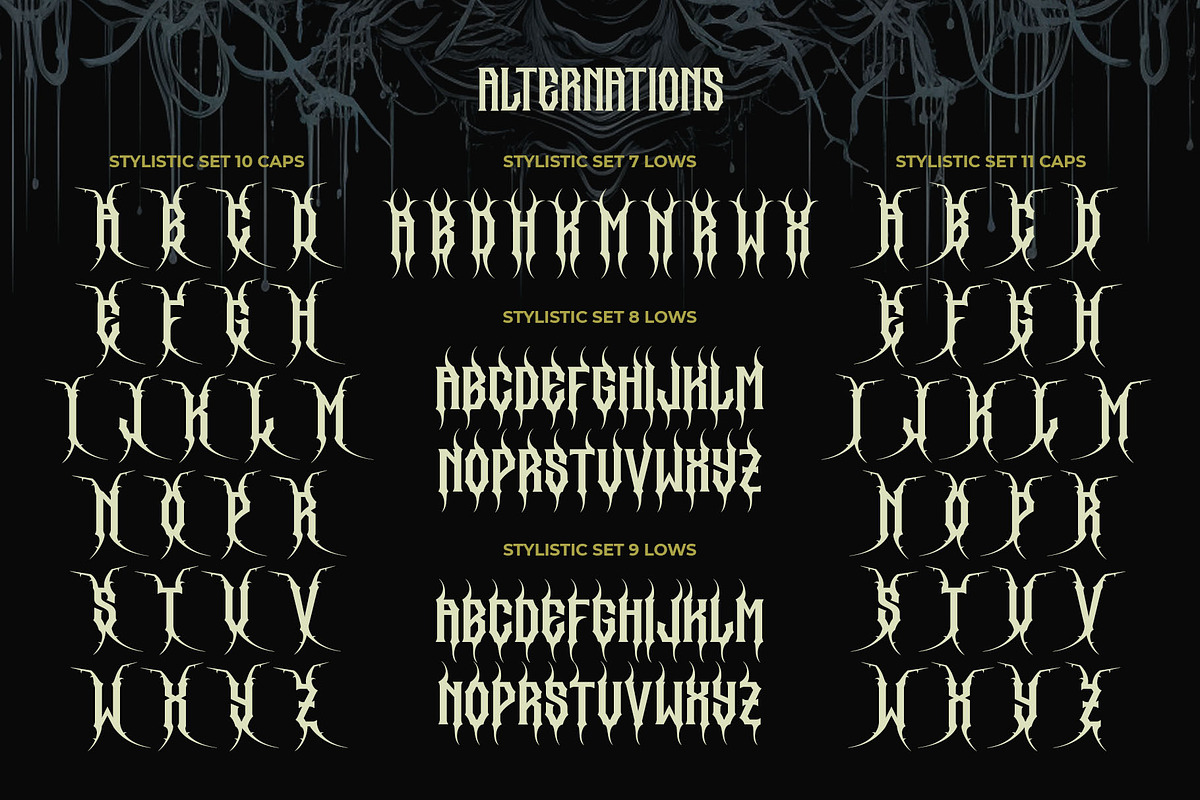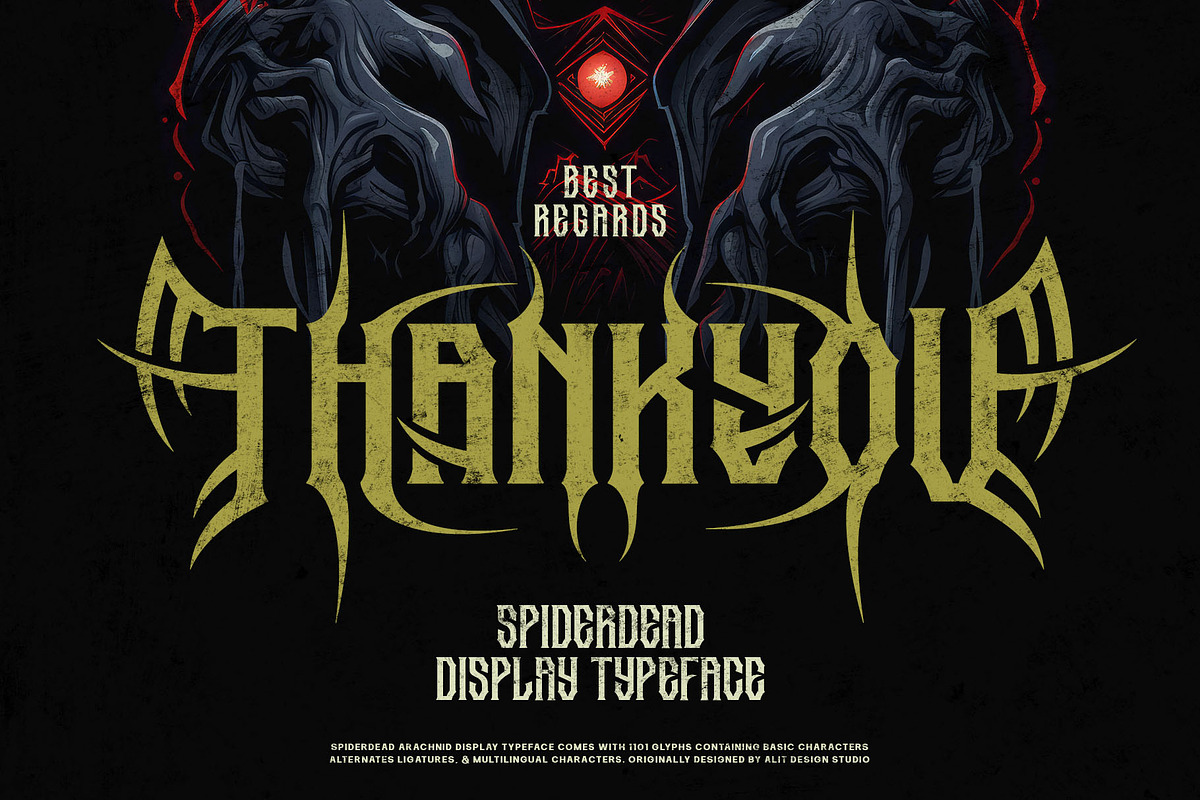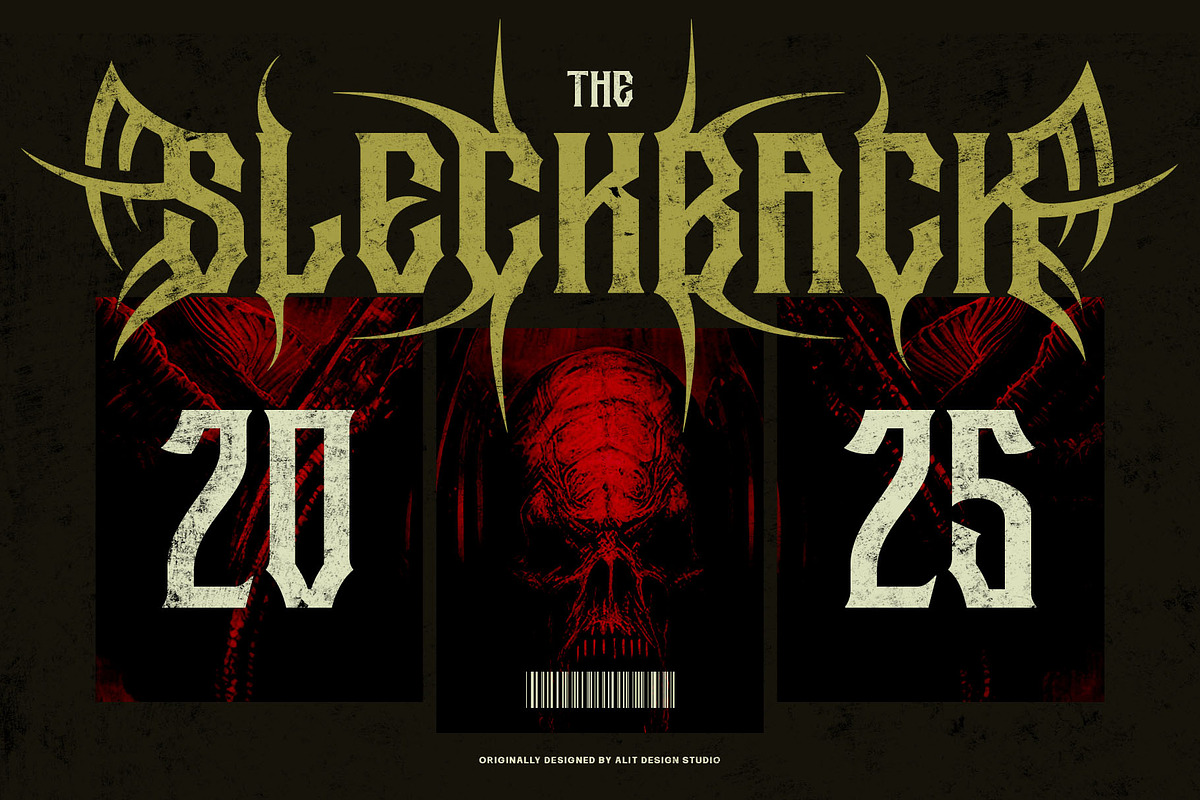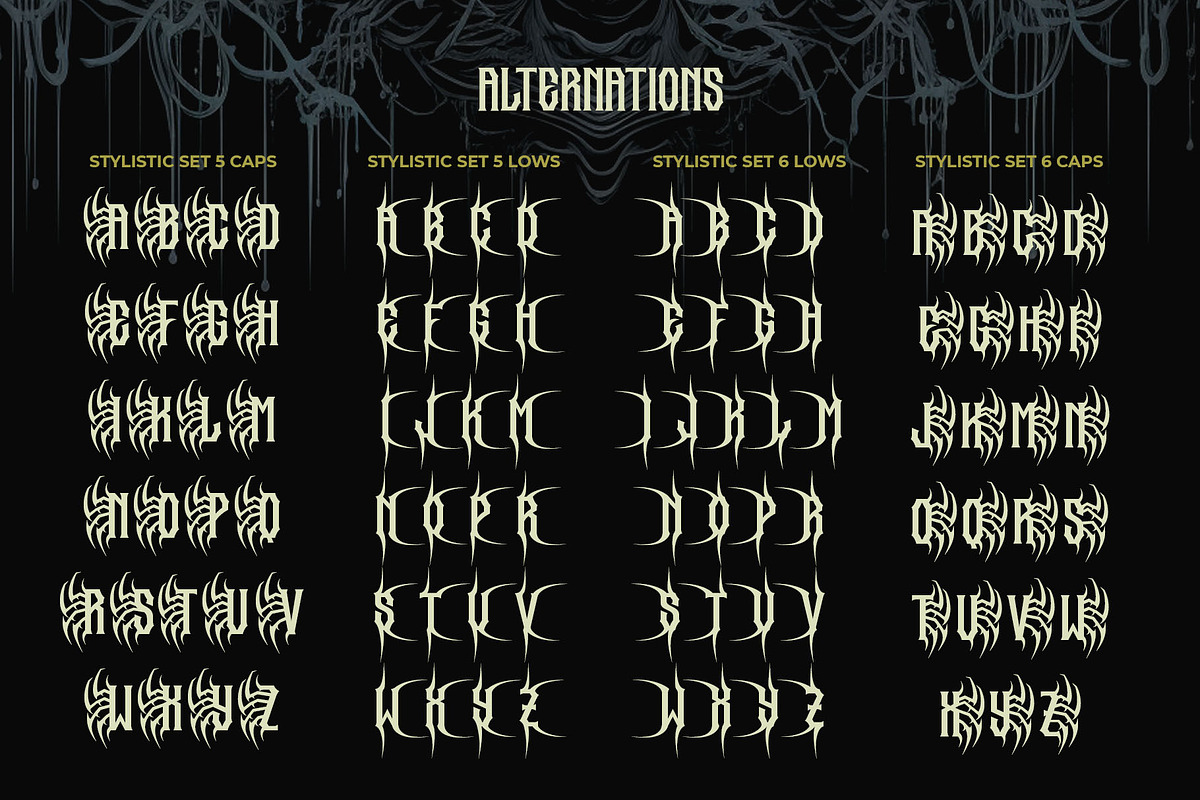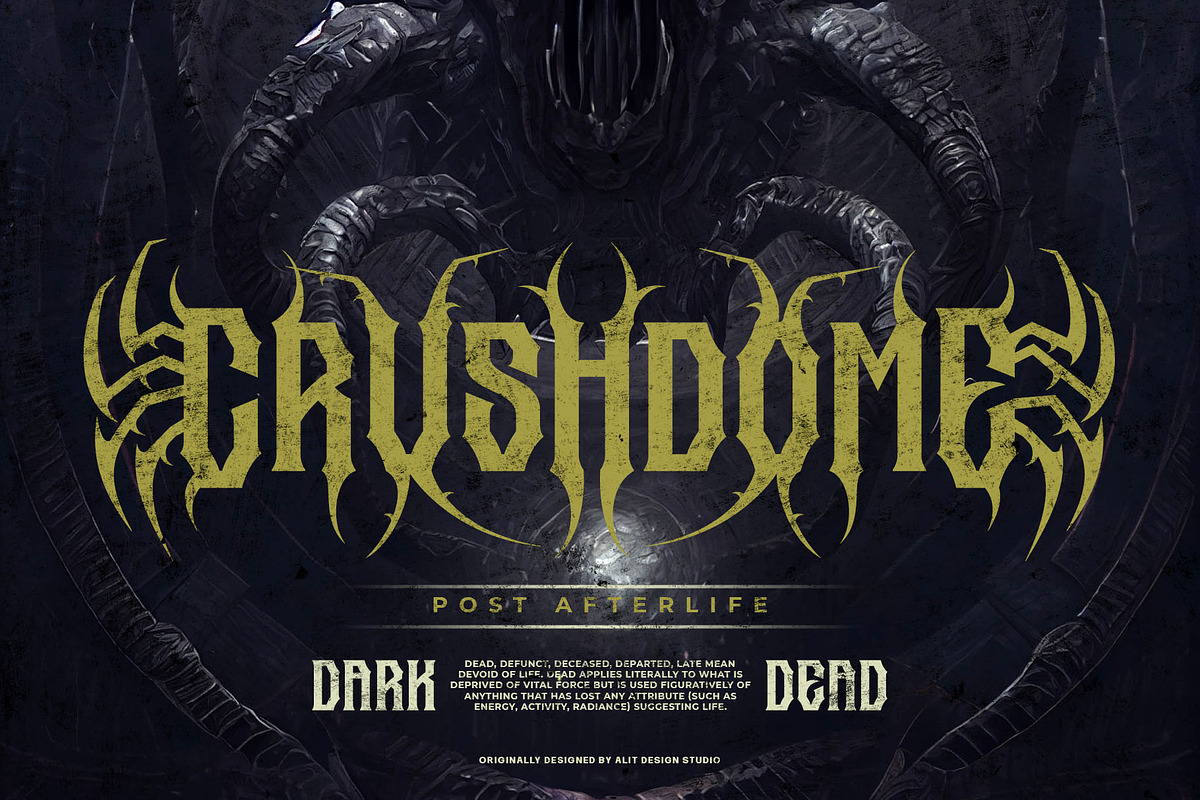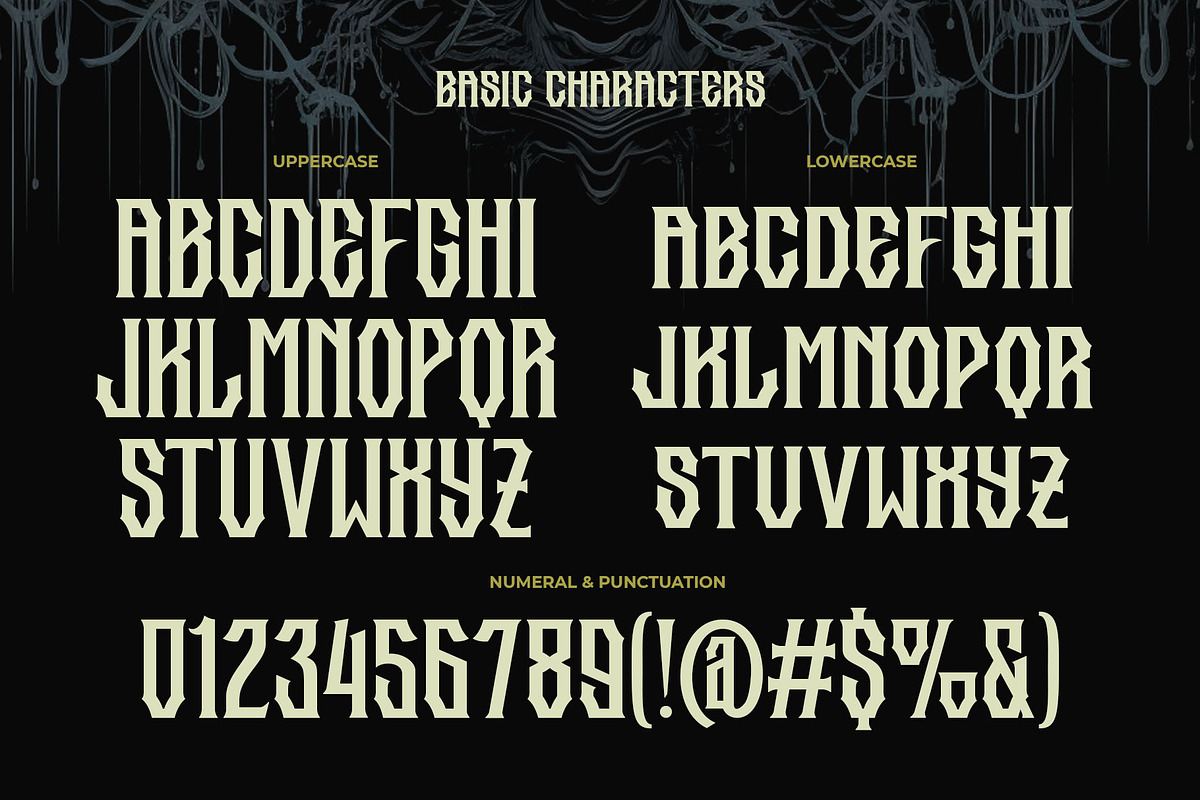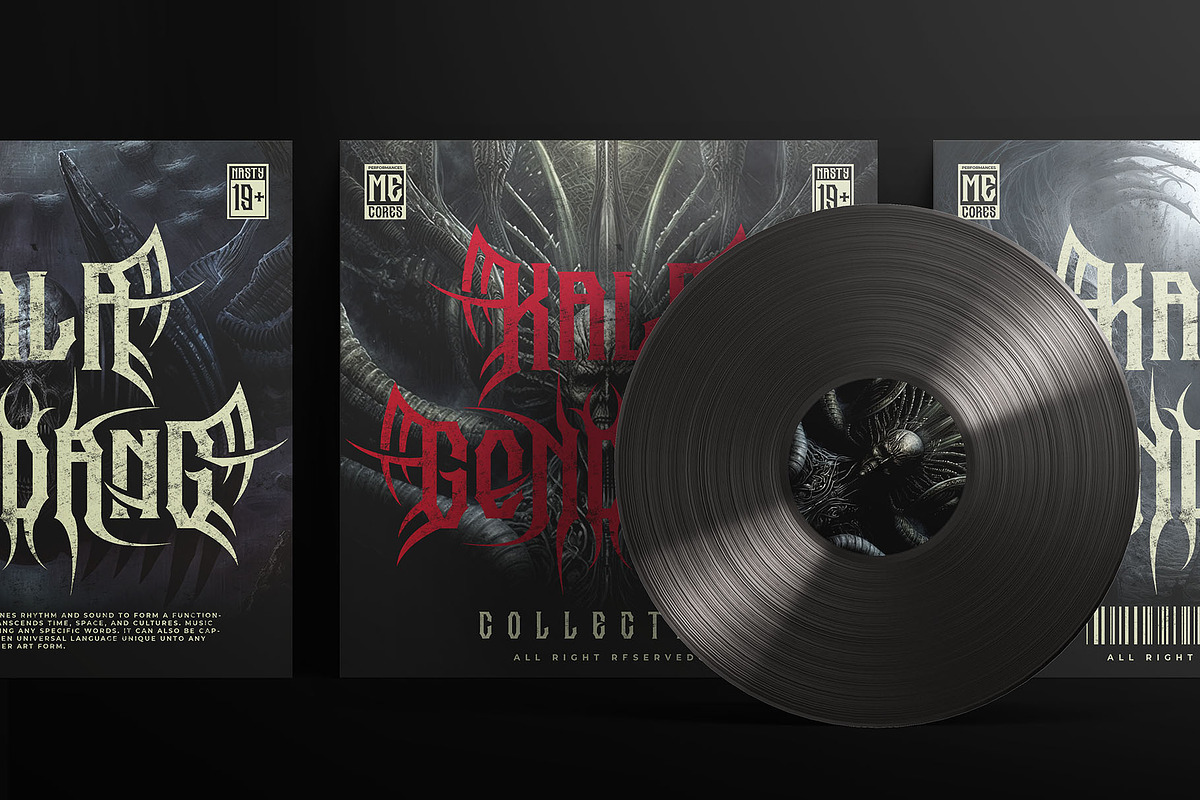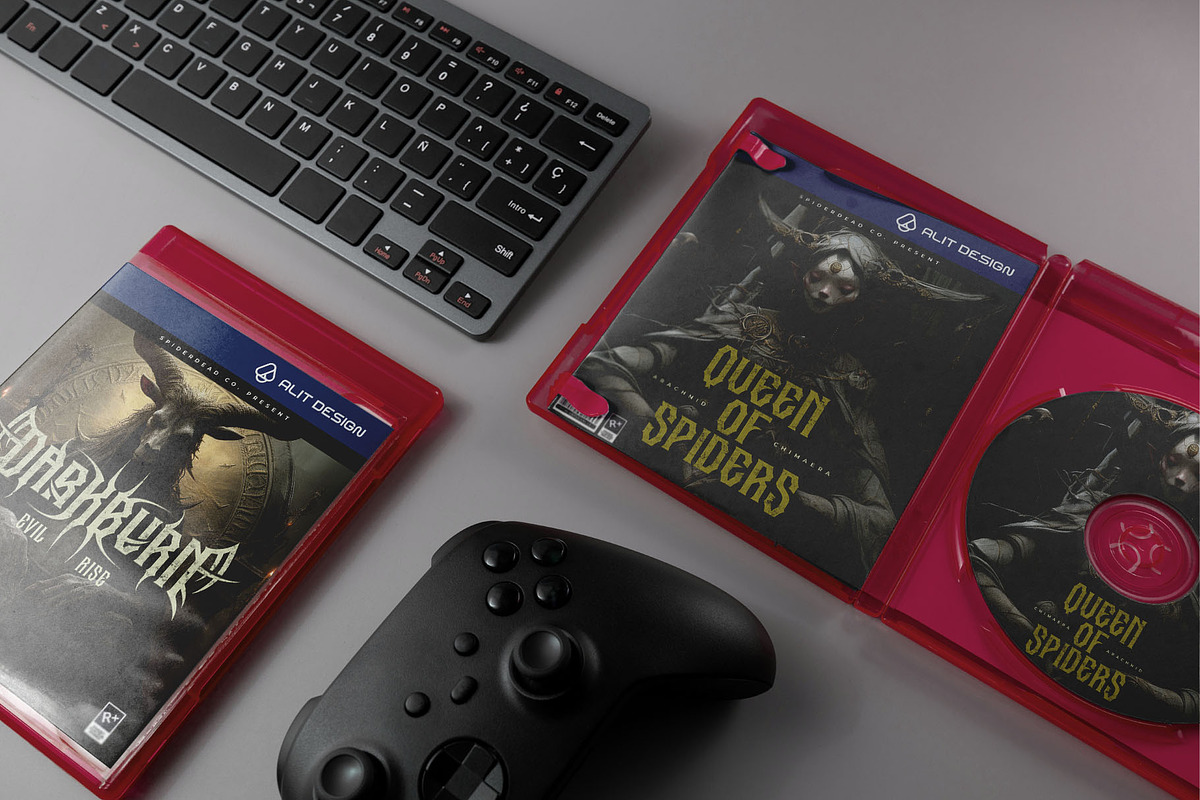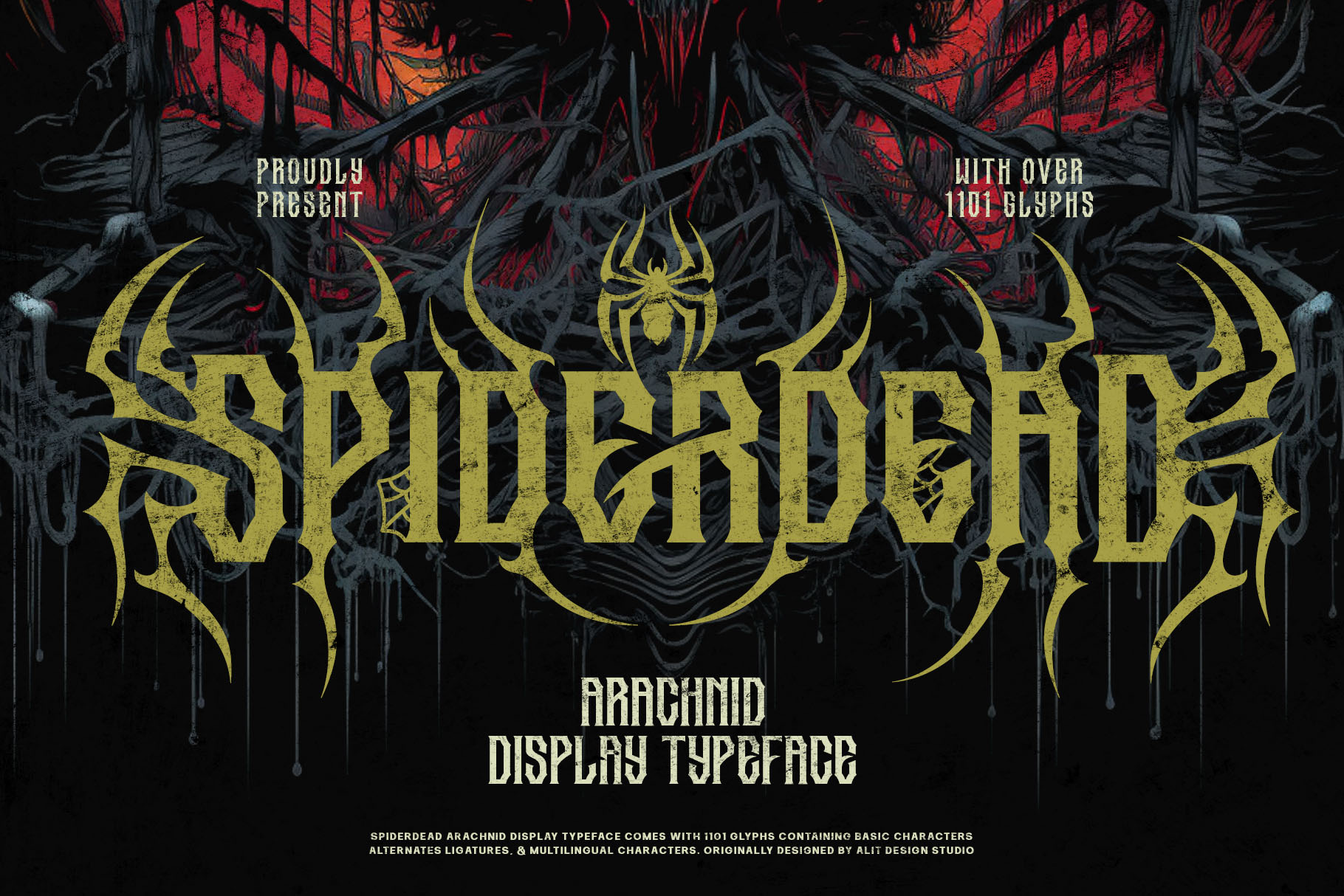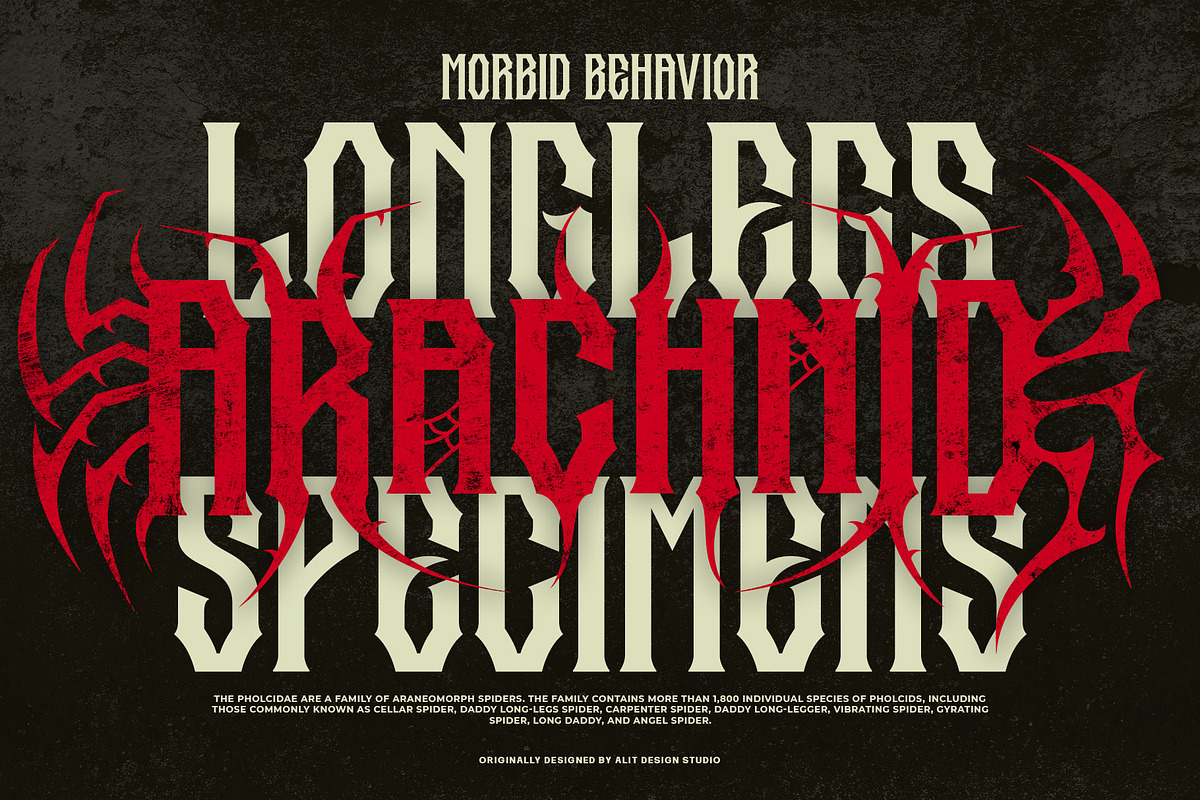
Spider Dead Typeface
Spiderdead Typeface: The Ultimate Arachnid-Inspired Font
Spiderdead is a meticulously crafted arachnid-themed display typeface that combines intricate details with a bold, edgy design. Perfect for projects that require a menacing, gothic, or horror aesthetic, Spiderdead brings an unmistakable sense of danger and drama to any creative endeavor. Inspired by spider webs, arachnid anatomy, and tribal motifs, this font offers both versatility and stunning visual appeal.
Features Overview:
Extensive Glyph Set: Over 1101 Glyphs
- Includes uppercase, lowercase, numbers, punctuation, and special symbols.
- Supports alternate characters and ligatures for more unique lettering options.
- Multilingual support for extended usability.
Stylistic Sets & Alternates:
- Choose from multiple stylistic sets (5 & 6) that offer caps and lowercase variations.
- Gothic and spiky alternates give each letter an aggressive, webbed look.
- Perfect for creating logos, titles, or headlines with distinctive personality.
Design Aesthetic:
- Features angular, spiked letterforms with details resembling spider legs, webs, and venomous aesthetics.
- Works seamlessly for heavy metal bands, horror movie posters, gothic branding, and extreme sports designs.
- Adds a haunting yet professional touch to merchandise, album covers, book titles, or video game art.
Customization Options:
- Easily mix and match glyphs using its ligatures and alternates for tailored typography.
Spiderdead stands out as the ultimate arachnid display font with its eerie yet captivating design. It’s not just a typeface; it’s a tool for storytelling—perfect for creating chilling atmospheres, adrenaline-pumping visuals, and bold identities for projects that push creative boundaries.
Applications:
- Posters: Perfect for horror, metal concerts, or thriller movie advertising.
- Merchandise: Print-ready for T-shirts, hoodies, and other apparel.
- Branding: Adds character to edgy brands and projects.
- Digital Media: Ideal for social media graphics, gaming interfaces, and web headers.